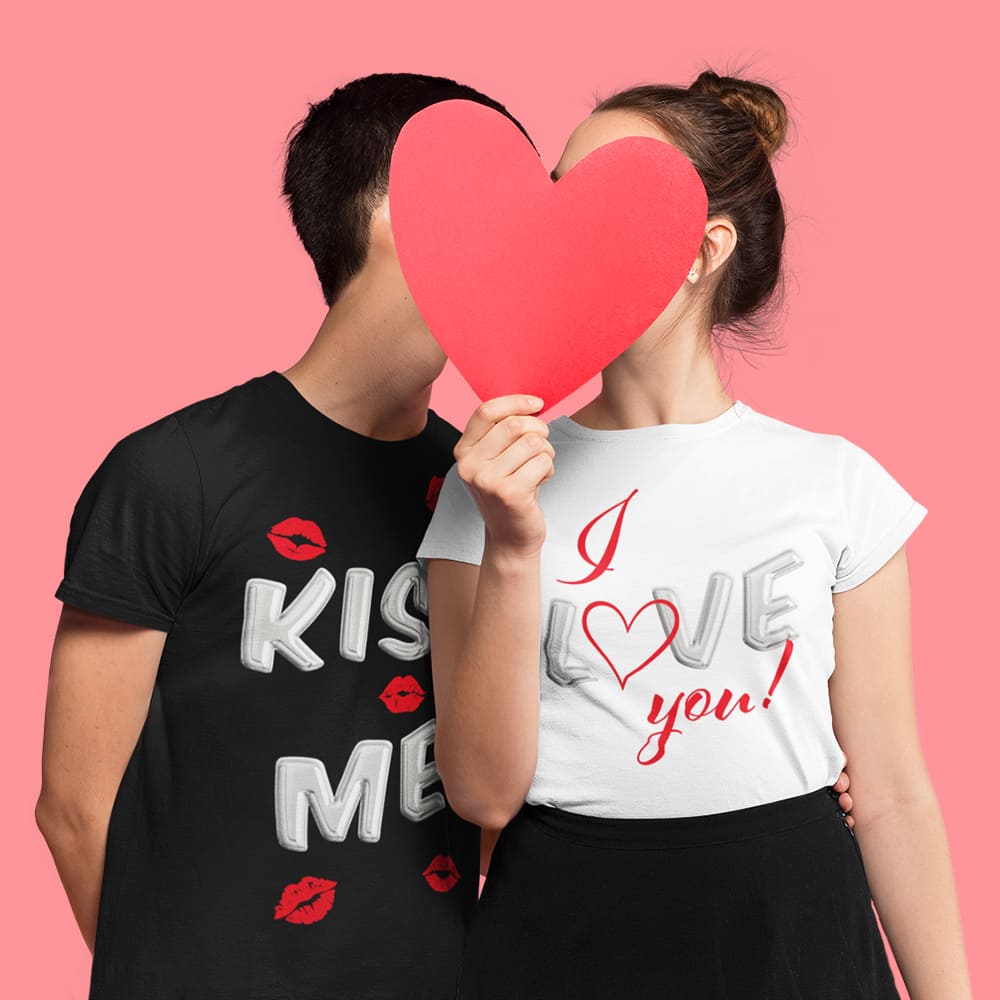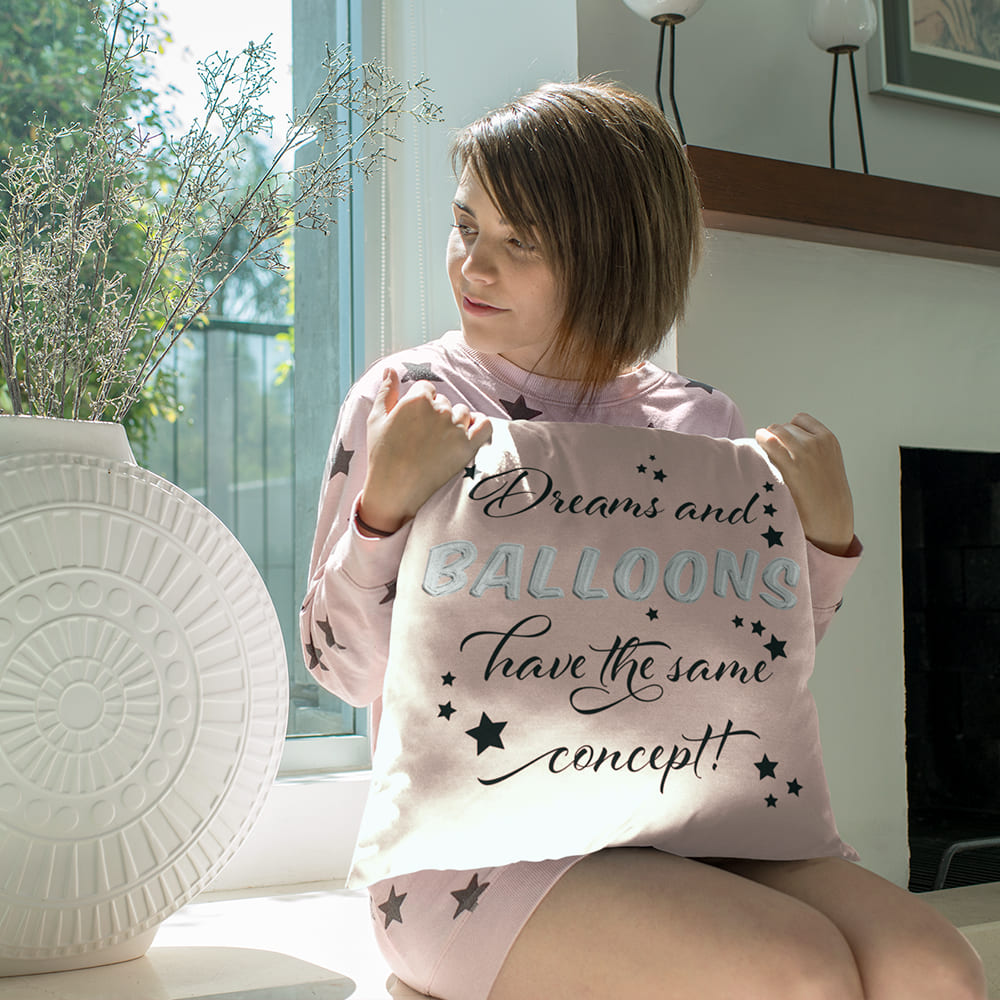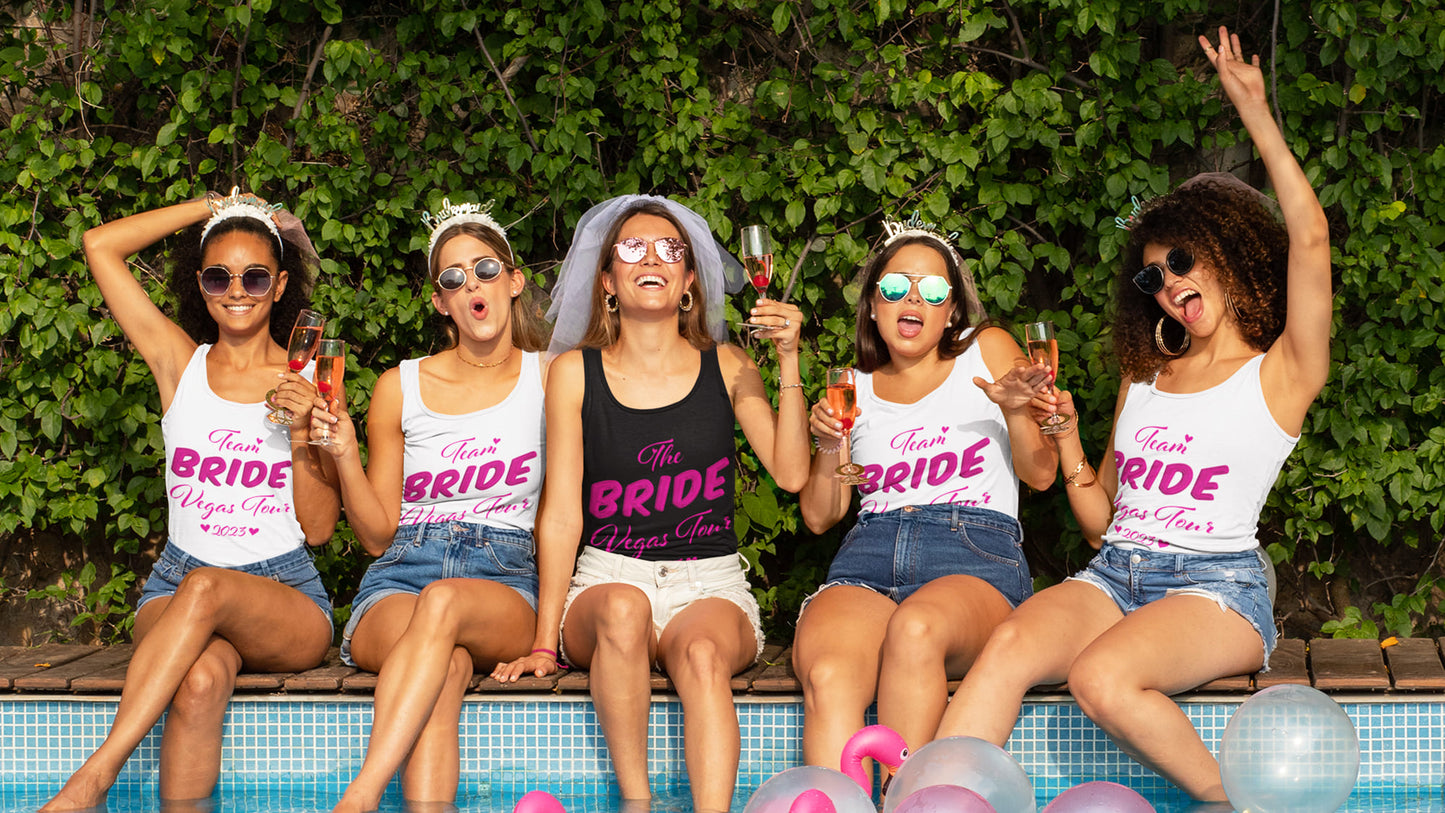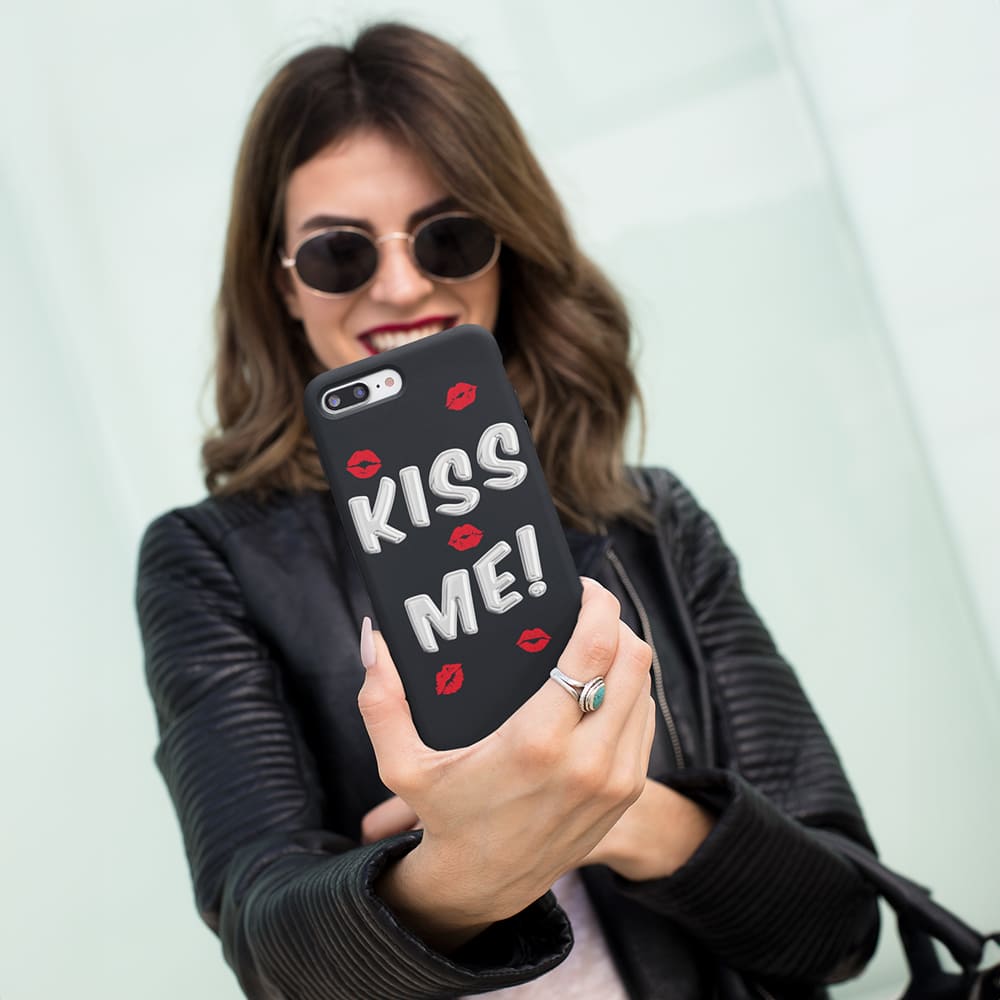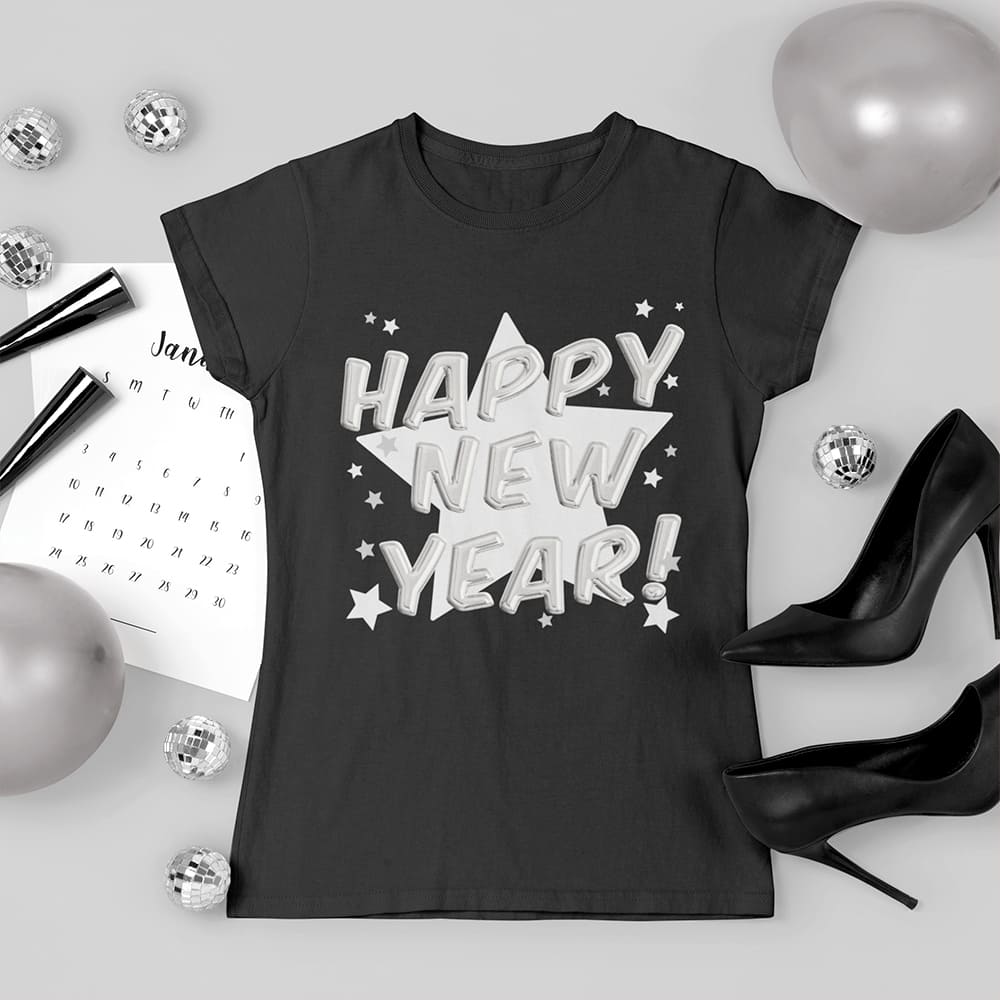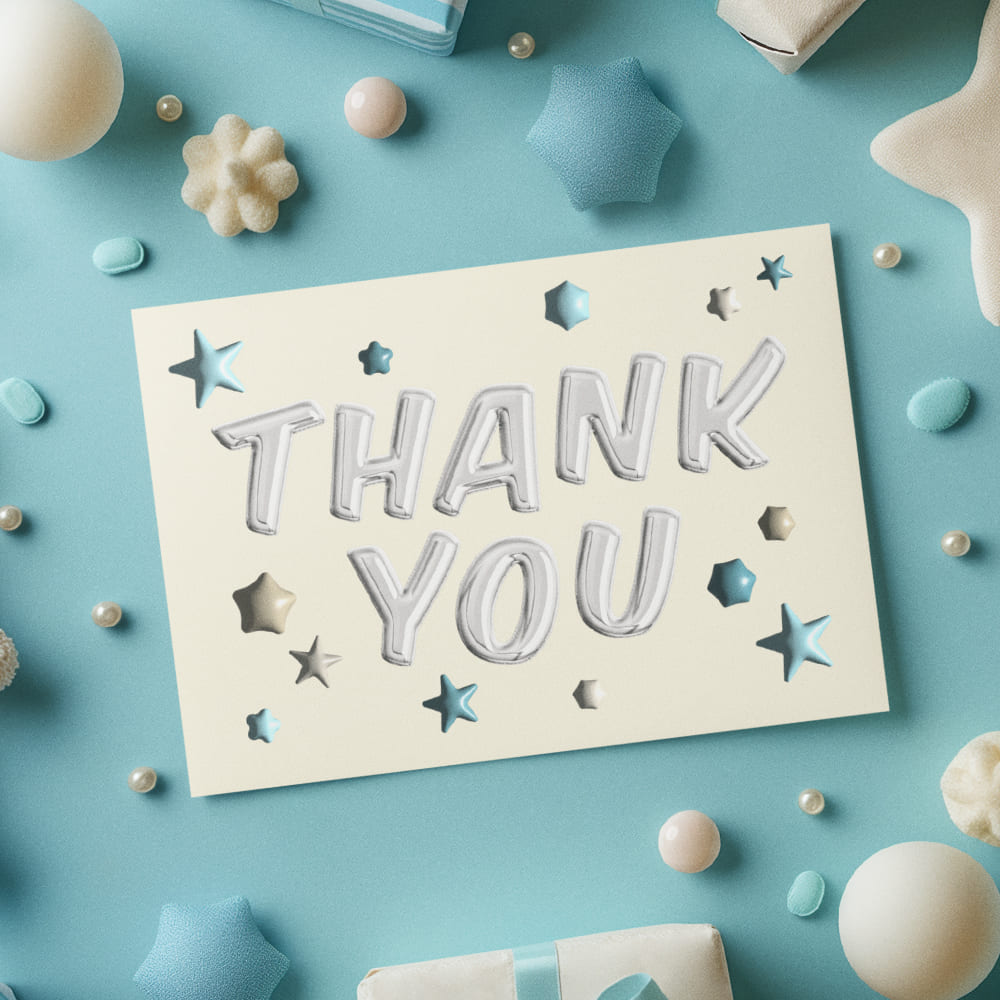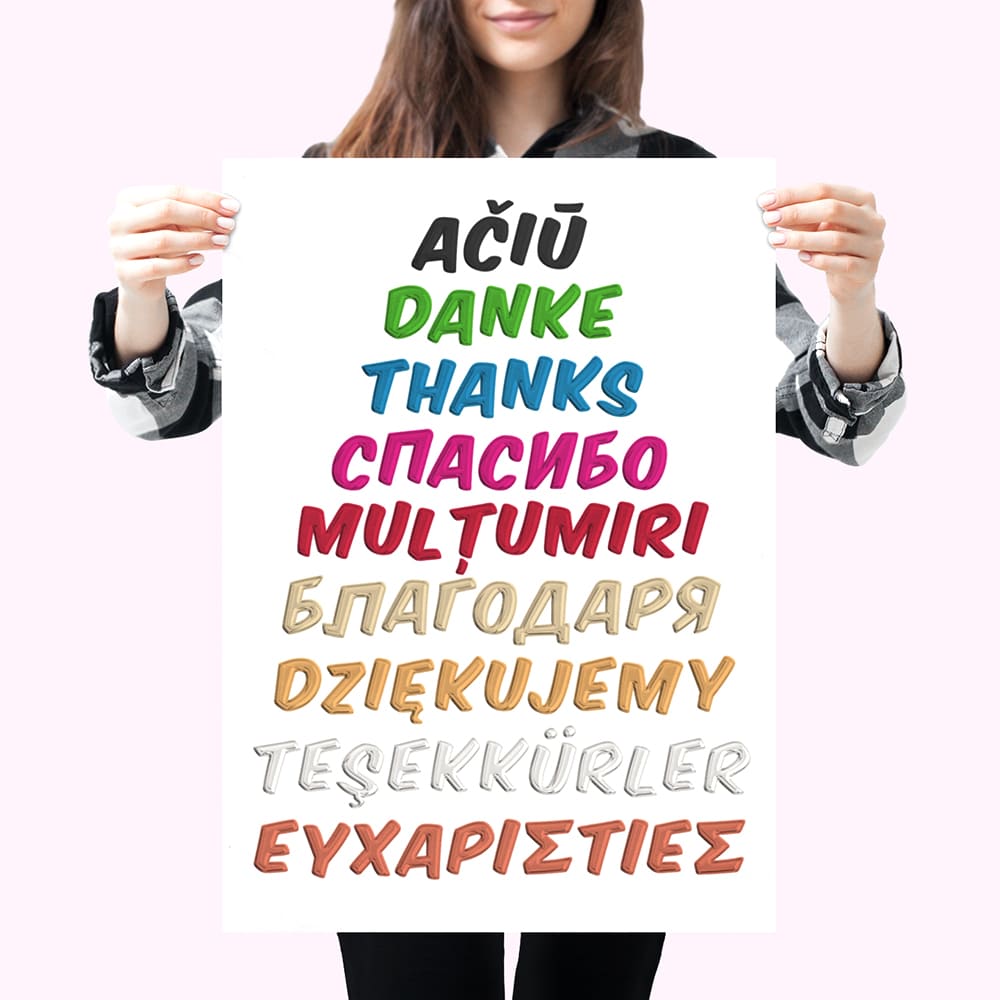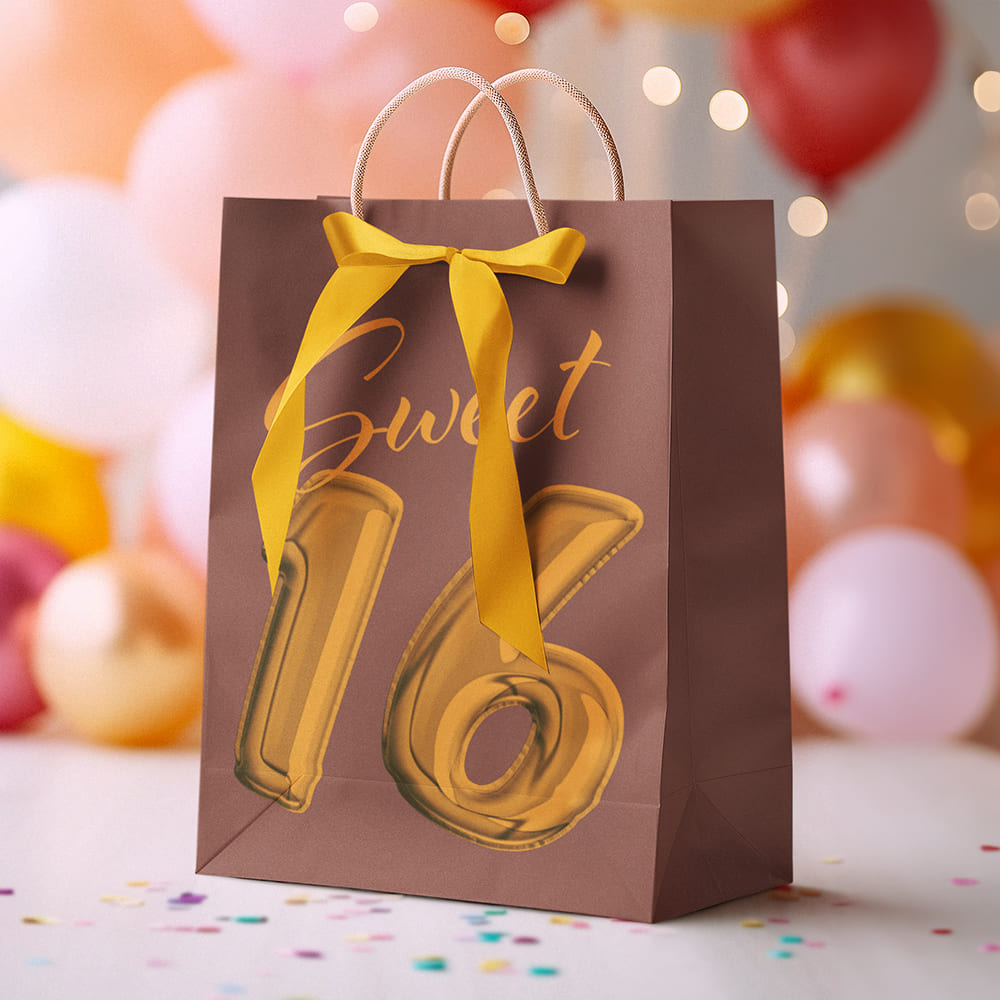
Balloon Font
Airy, Playful, Unforgettable πβ¨π₯³
Sometimes, your design just needs a little bit of lightness and fun. The Balloon Font brings exactly that β a playful, airy aesthetic that adds a cheerful and unforgettable touch to any project.
Why Choose Balloon Font?
πΉ Airy and Playful β The Balloon Font exudes lightness and joy, making it perfect for designs that aim to create a positive and inviting atmosphere.
πΉ Unforgettable Look β With its voluminous letters, the Balloon Font grabs attention. Perfect for events, parties, or kidsβ designs with a cheerful and dynamic vibe.
πΉ Ideal for Branding and Event Designs β Whether for social media, flyers, or posters, the Balloon Font brings fun and color to any design.
π₯Β EVERY FONT ROCKER FONT COMES WITH 325 GLYPHS & SUPPORTS OVER 100+ LANGUAGES WORLDWIDE, INCLUDING CYRILLIC, GREEK & MORE.
Make a Statement with Balloon Font
Give your branding and design a fresh, modern look with a touch of playfulness. The Balloon Font is the perfect choice for brands and projects looking to stand out with lightness and charm. And the best part? The Balloon Font is available in multiple colors, so you can tailor it to your style and design.
πΉ Make your design unforgettable β Let the cheerfulness of the Balloon Font shine through in your project.
πΉ Choose playful. Choose inviting. Choose Balloon Font.